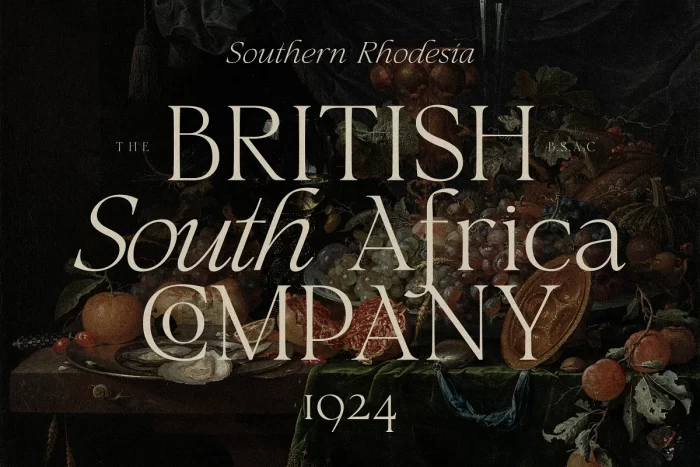
Florentino – a Renaissance Era calligraphic-inspired serif with a touch of elegance. Specially designed for retro, elegant projects, Florentino is perfectly suitable for creating classic design such as logos, packaging, editorial, and more.